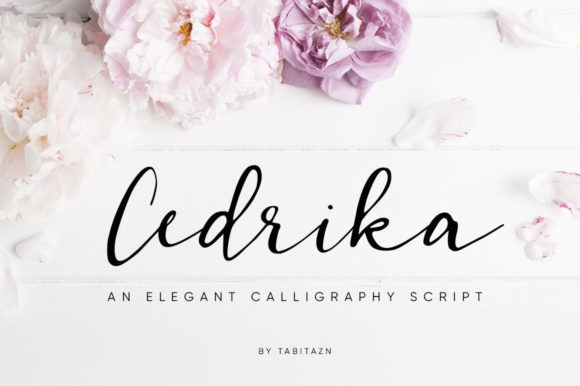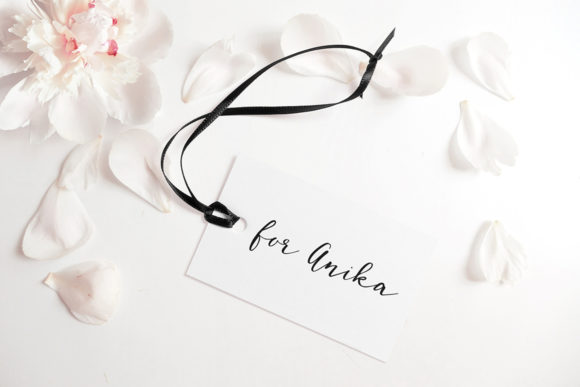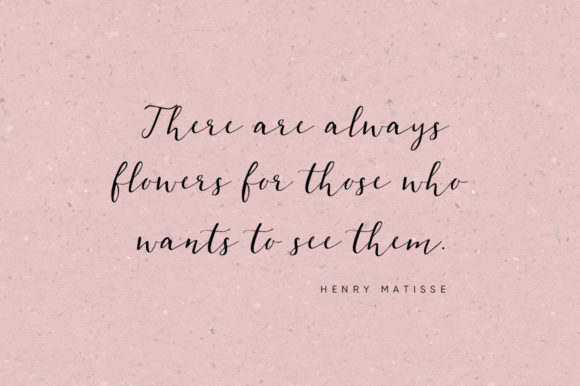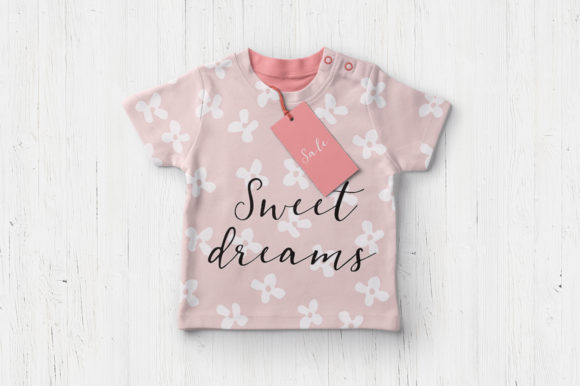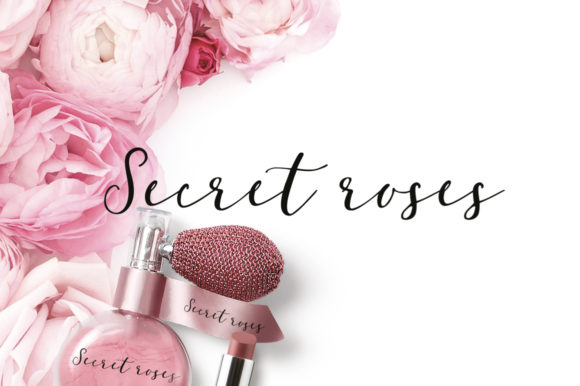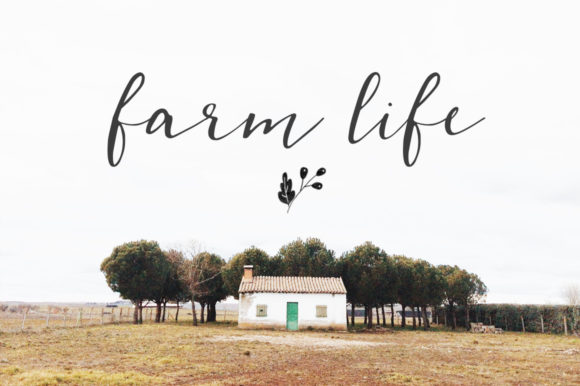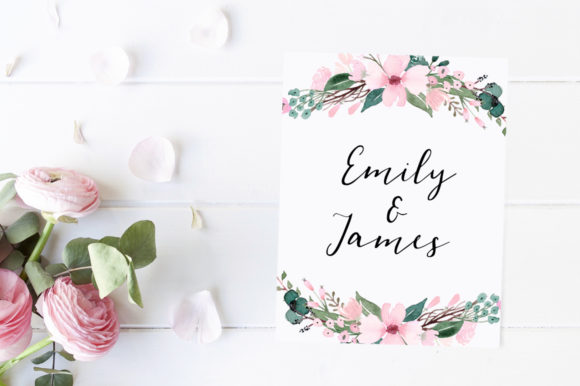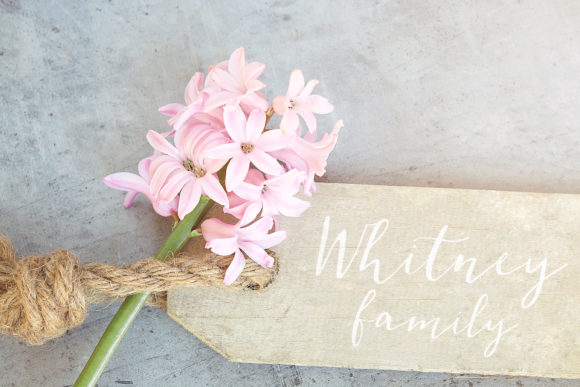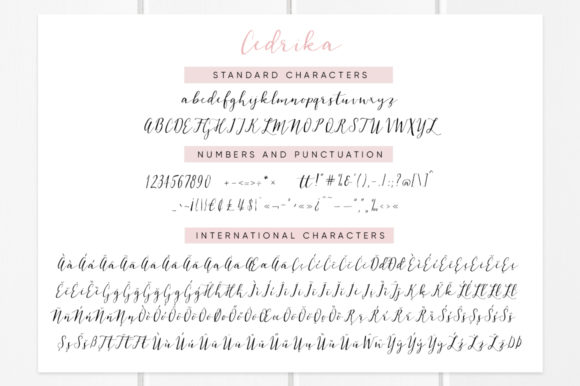
Cedrika Font
About Cedrika Font
The Cedrika is an elegant calligraphy script. It’s perfect for adding an artistic feel to your logos, branding, wedding designs, greeting cards, and much more!